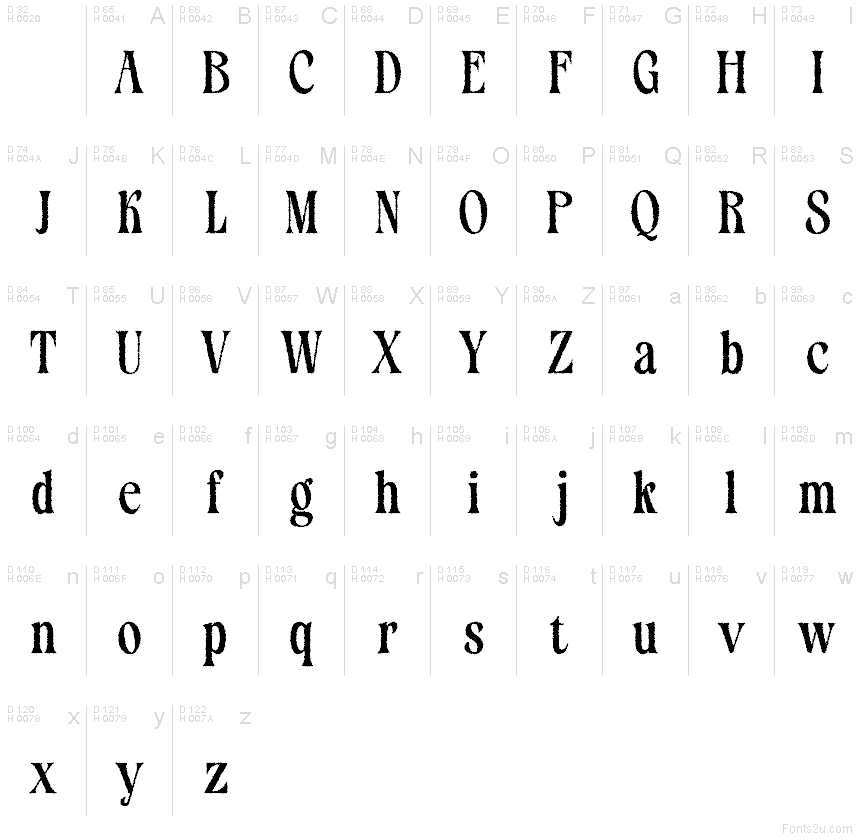
RedikaRough-Regular Demo
Redika Rough font by Craft Supply Co. is a vintage-inspired display typeface that captivates with its eroded, gothic influence. Its condensed width and decorative flair give off an intense visual presence that’s both distressed and ornamental. While each letter has a personality on its own, the entire typeface can tell truly unique stories.